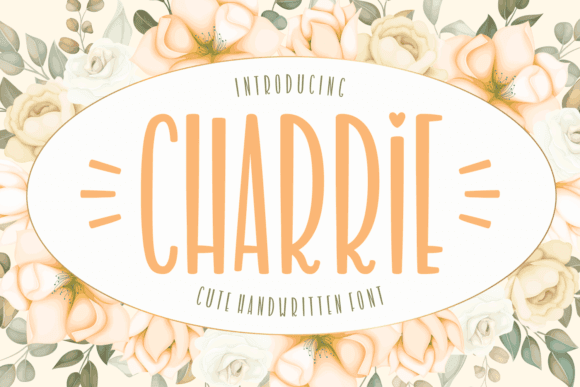
Charrie Font
Charrie is a sweet, tall, and romantic handwritten font, that you can use for all chalkboard quotes or teaching material! Its authentic look will add a personal and realistic feel to your designs.